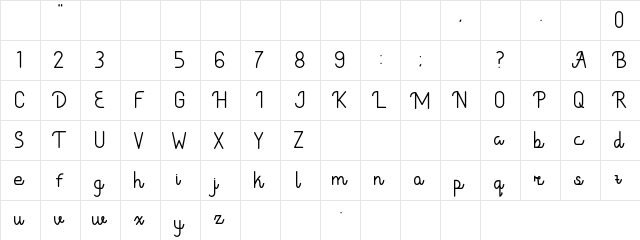
Cadancy Demo Regular
| Designer | Irgy Widhiarma |
Design Context for Cadancy Demo Typeface
Cadancy Demo offers clean, dependable letterforms without strong stylistic allegiance, making it a practical choice for designers who need flexibility.